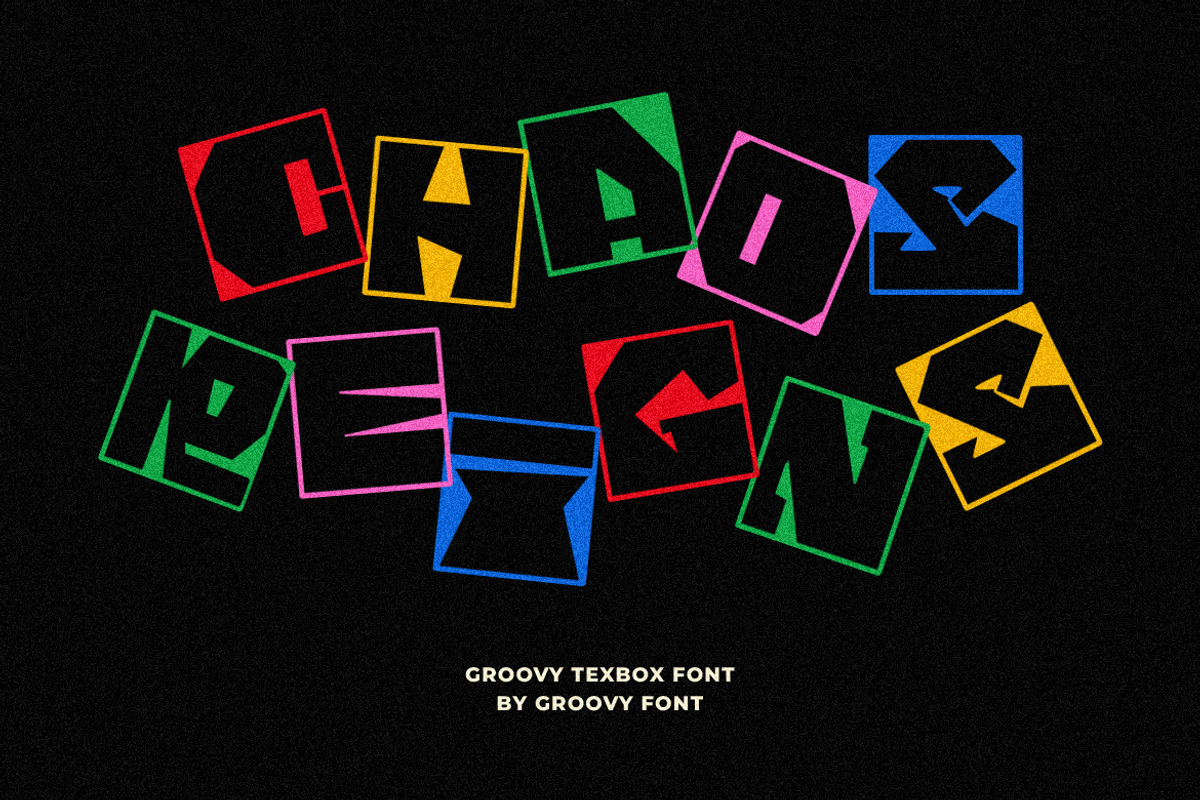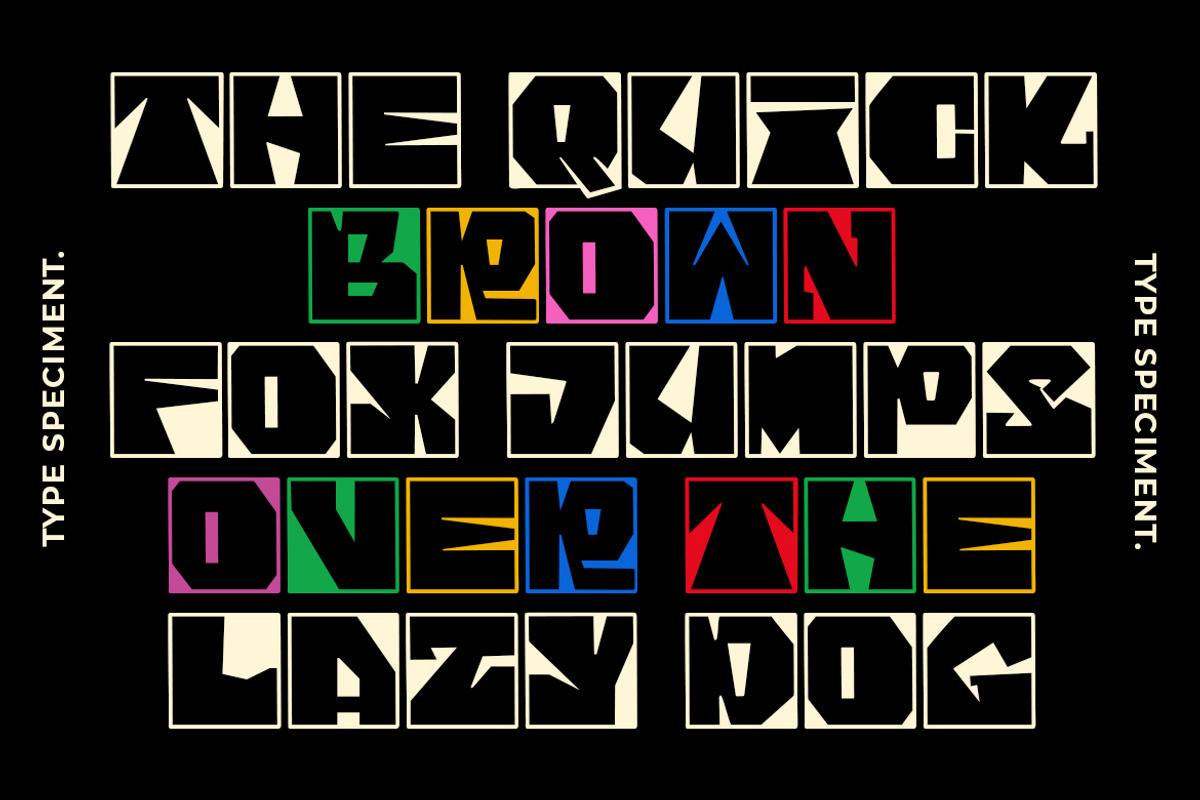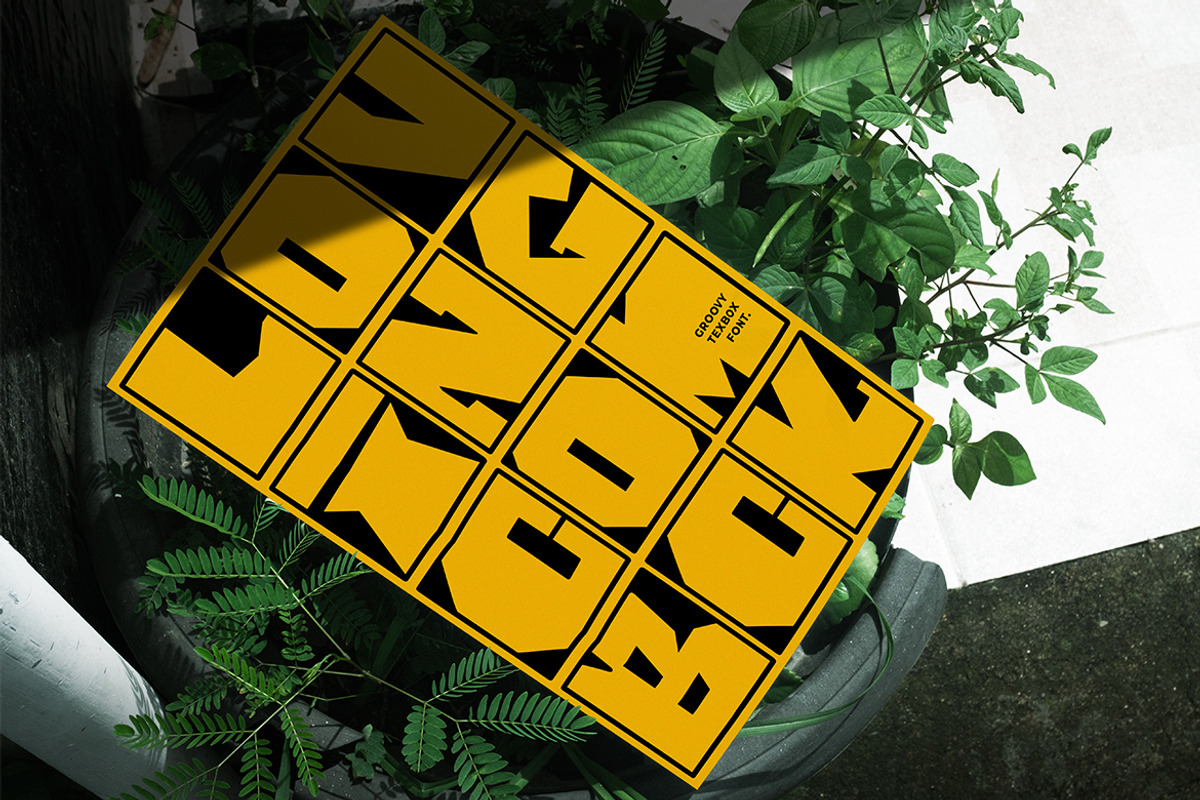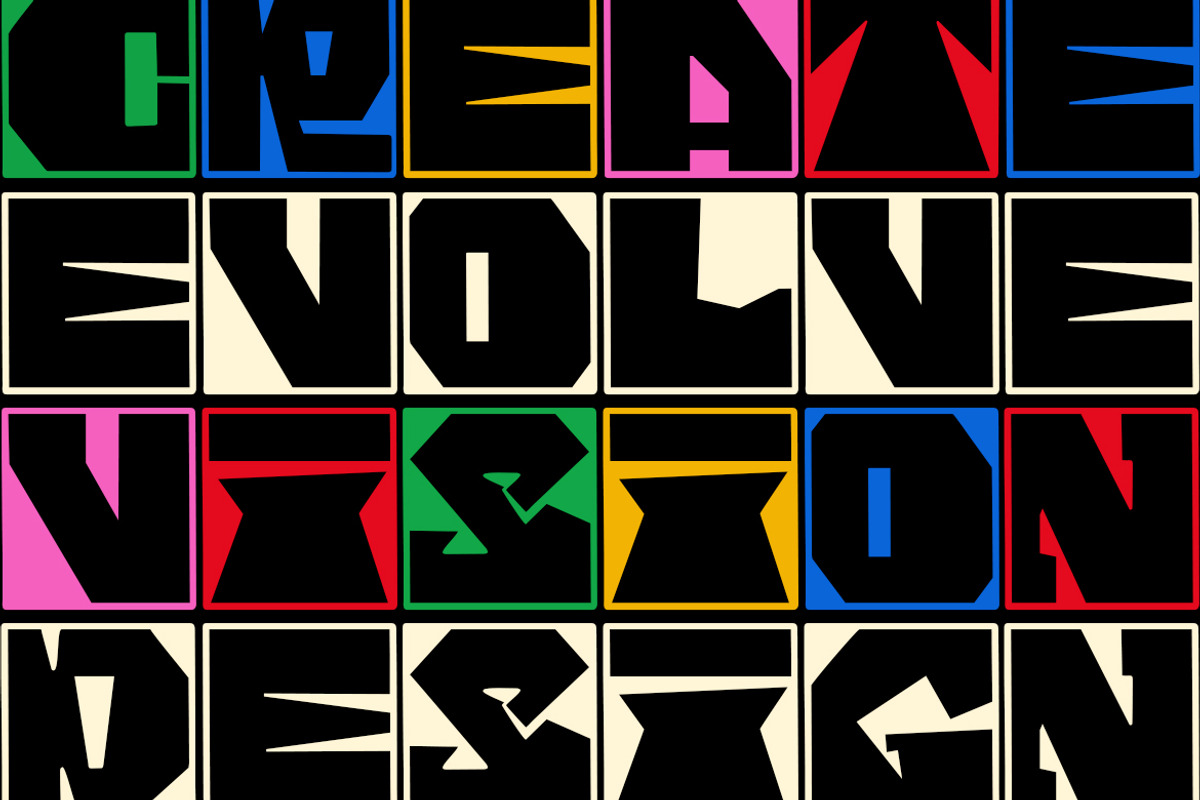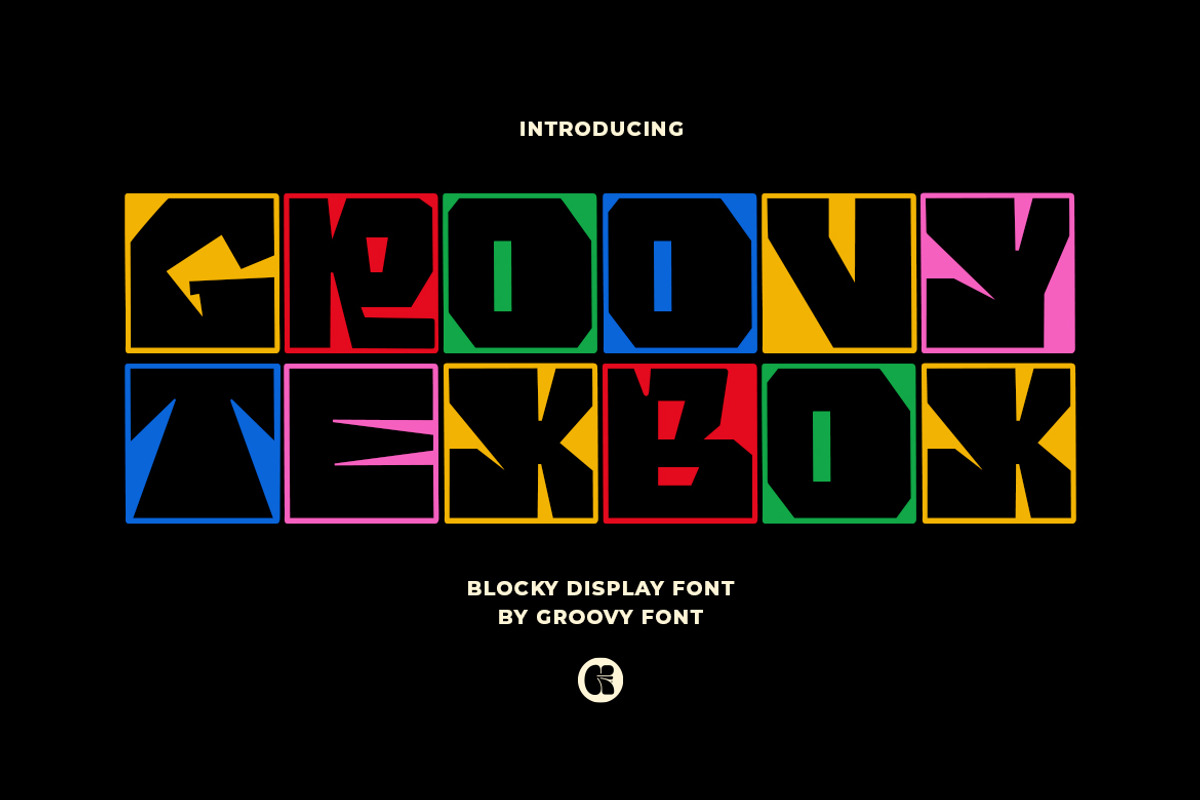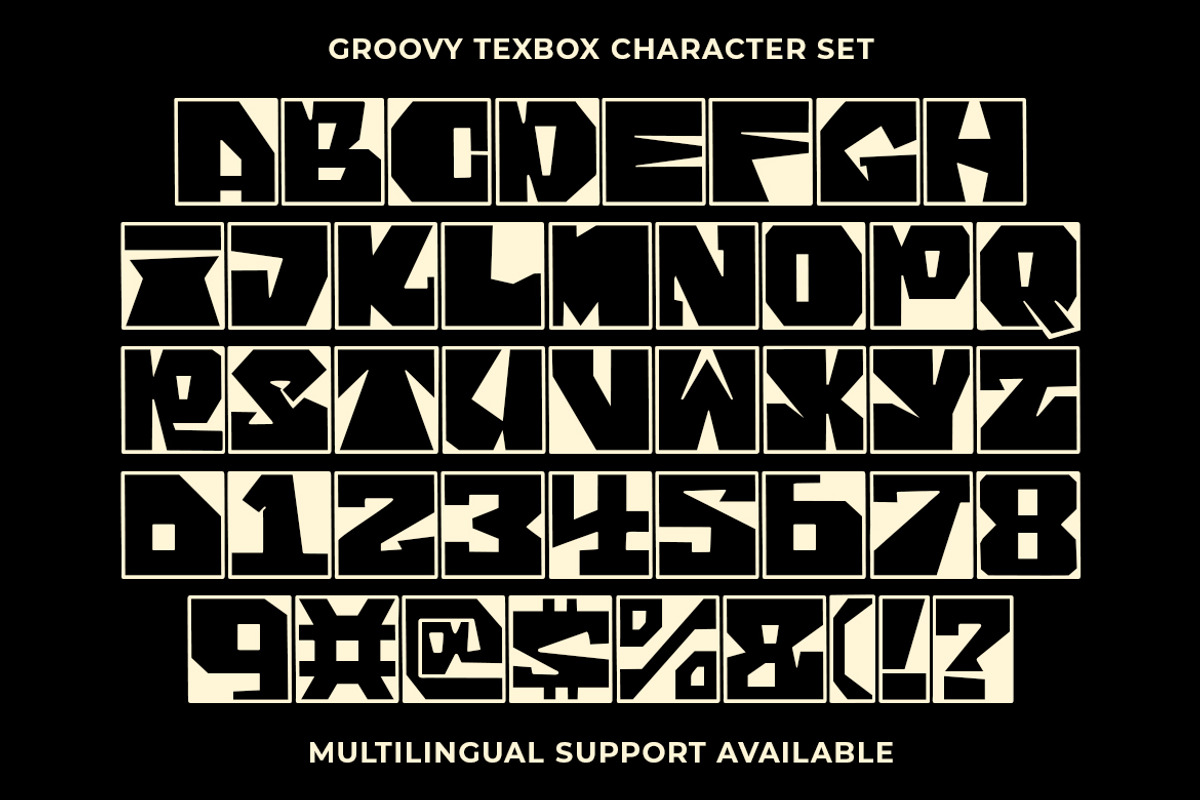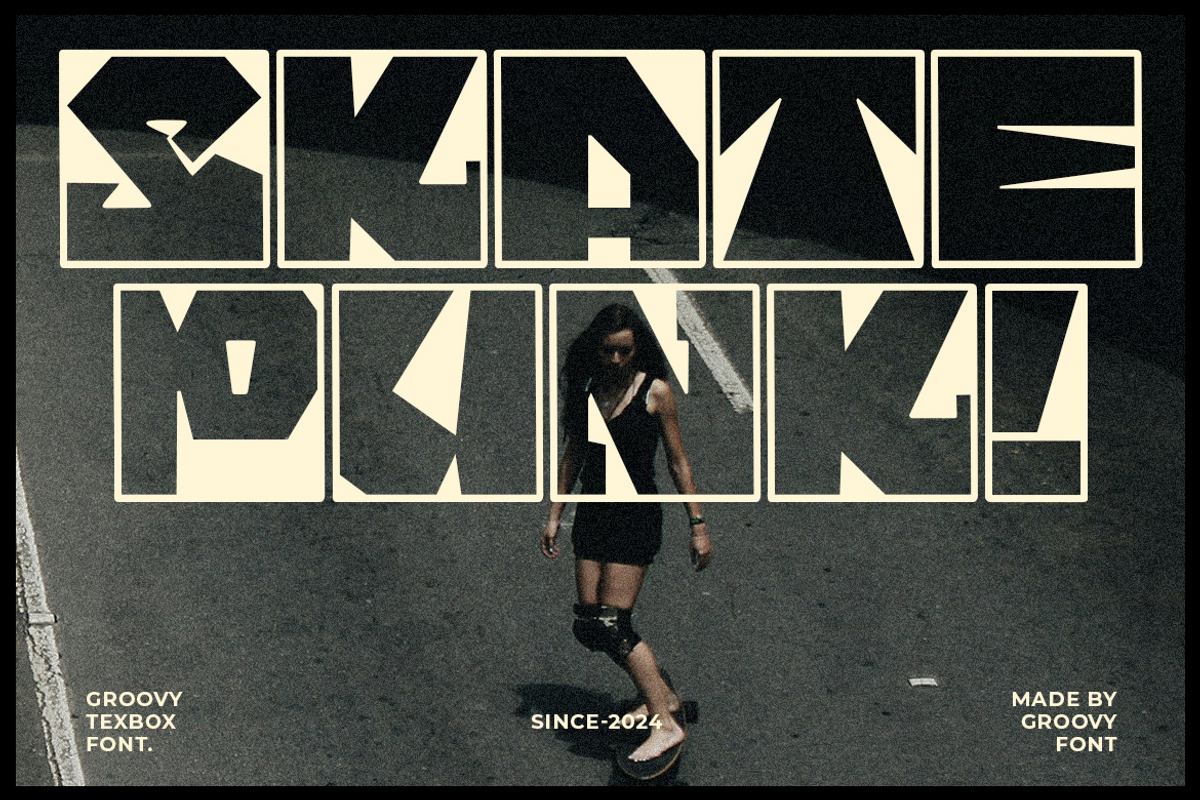
GF Texbox - Blocky Display Font
Groovy Texbox is a bold, blocky display font with a retro style. Each letter is enclosed within a blocked box, giving it a distinctive, eye-catching appearance.
This font is perfect for creating a bold and playful retro look in posters, headlines, and other designs.